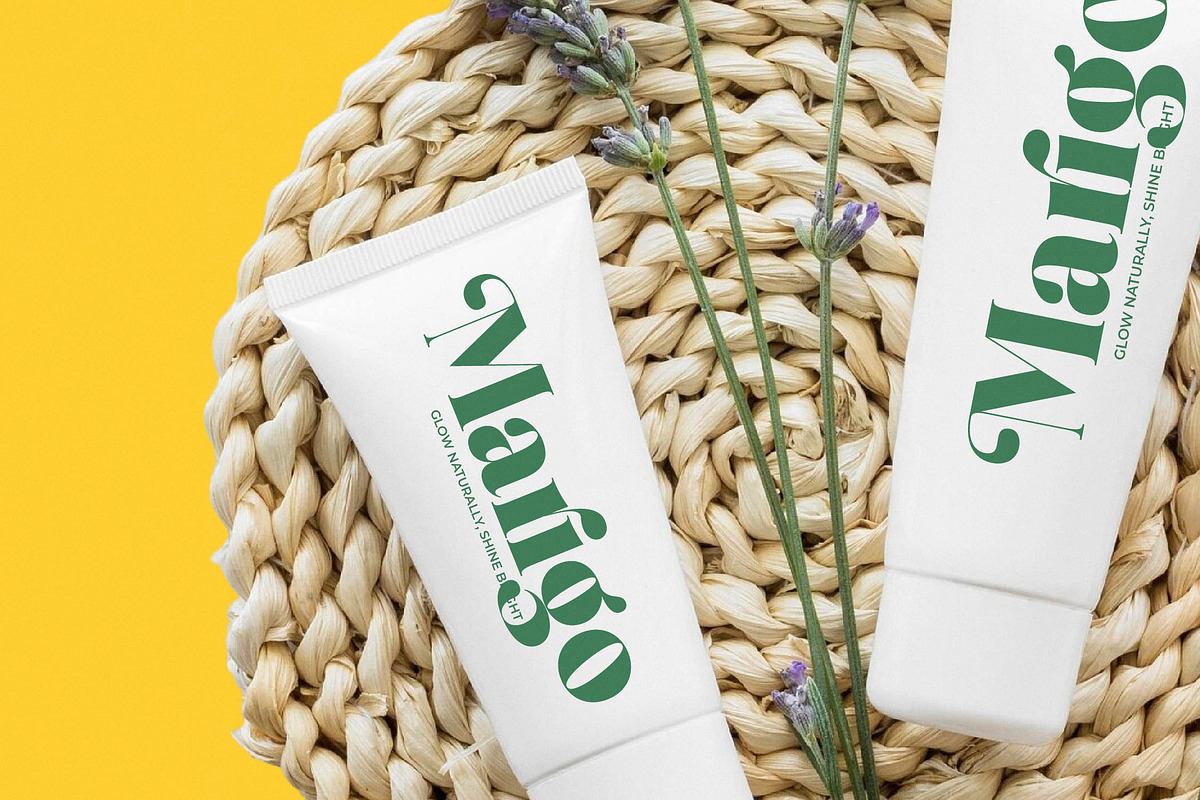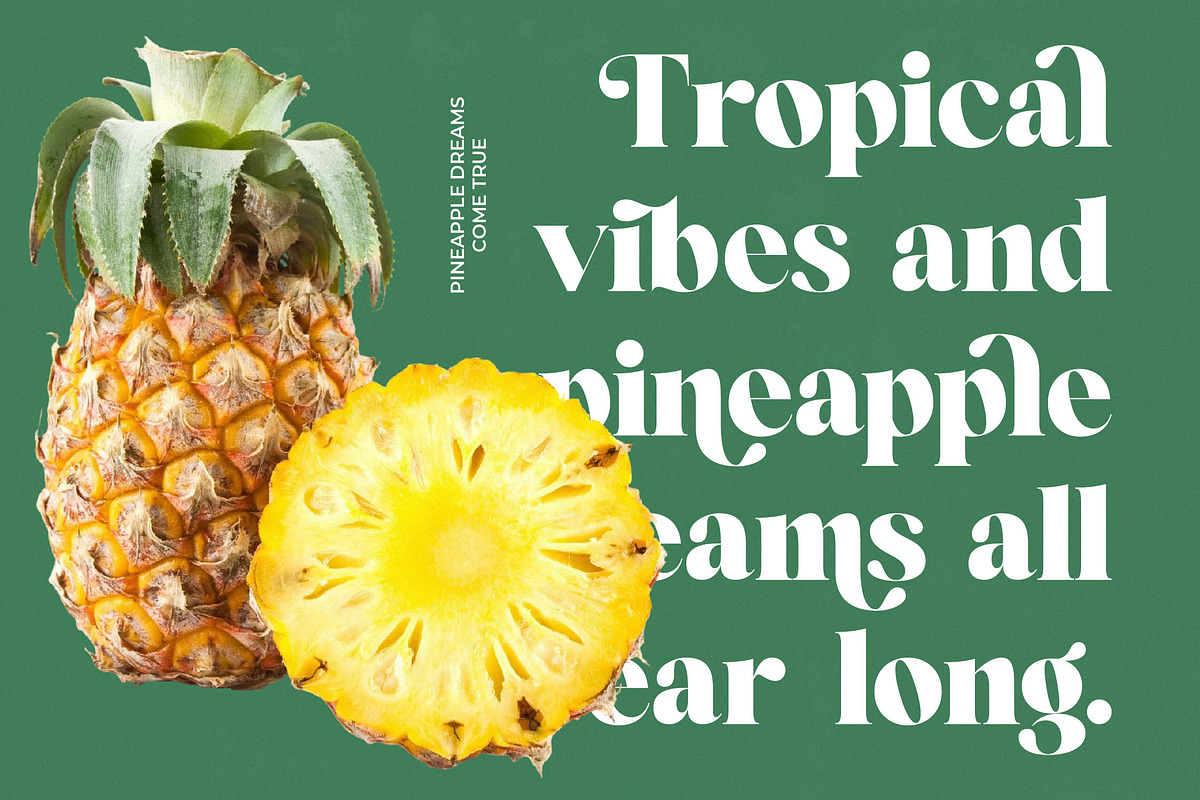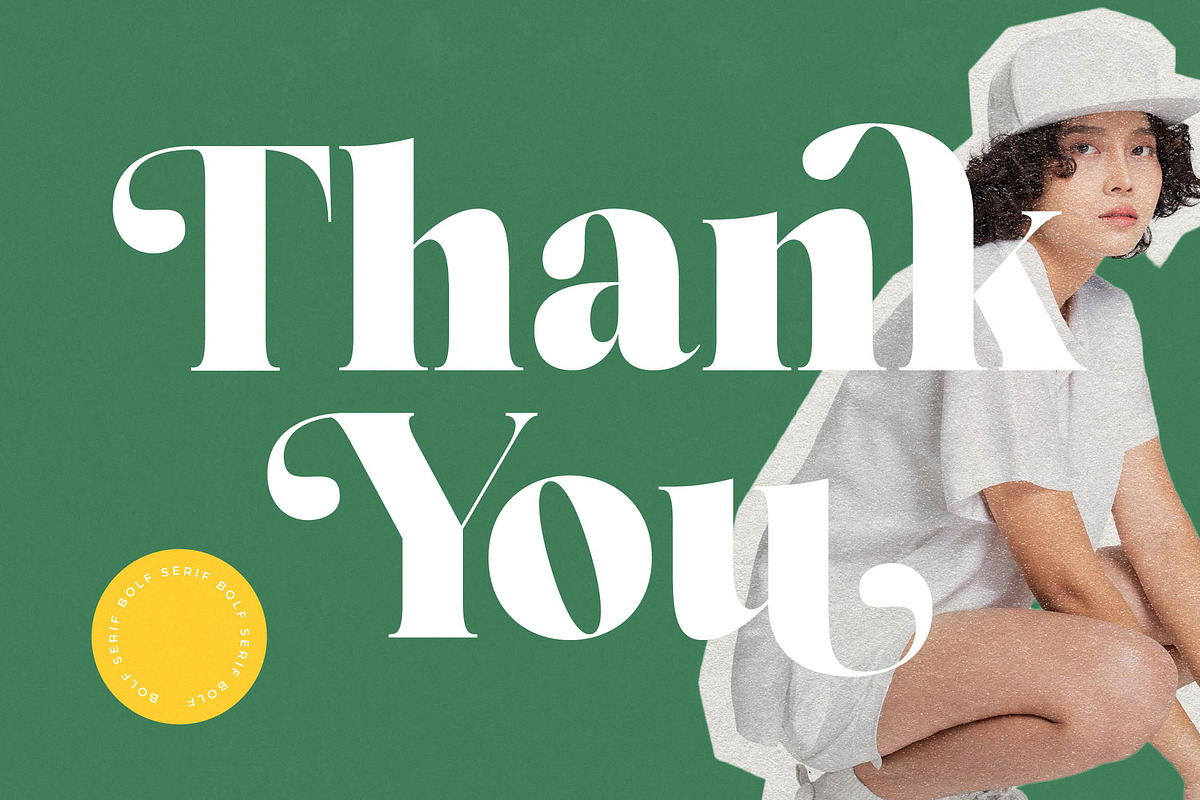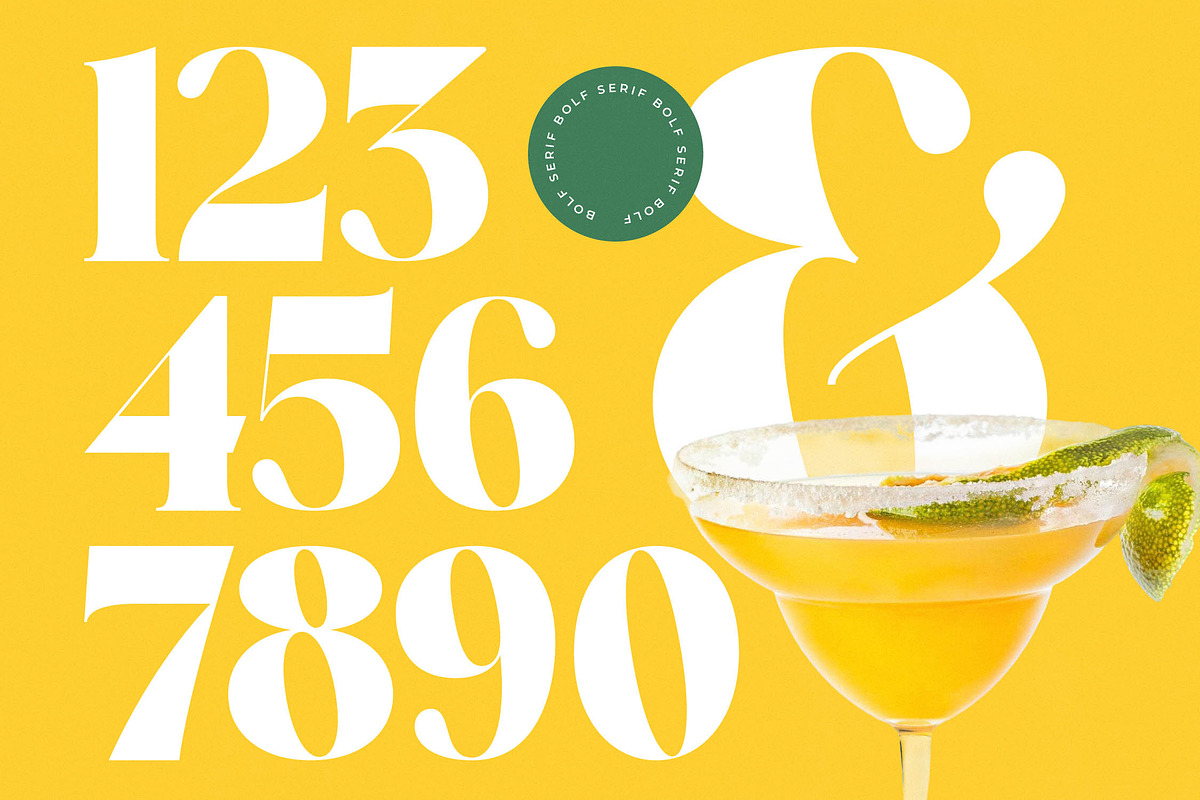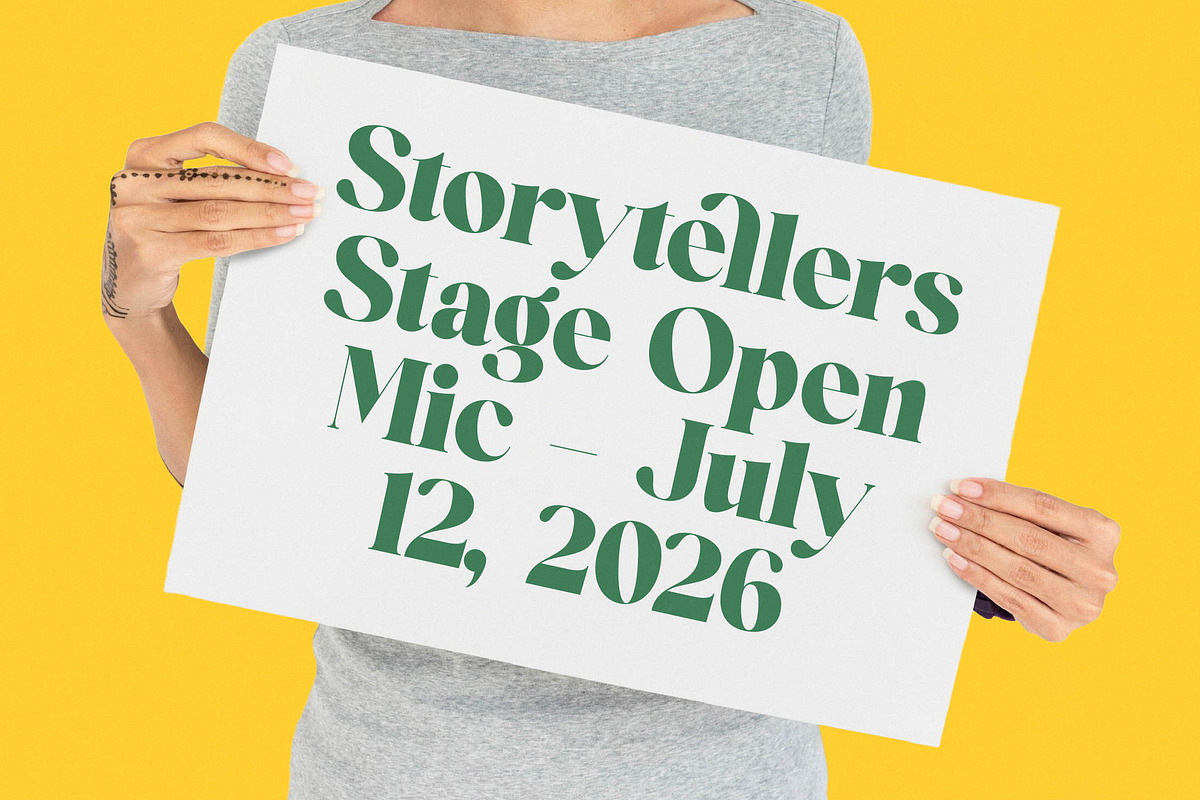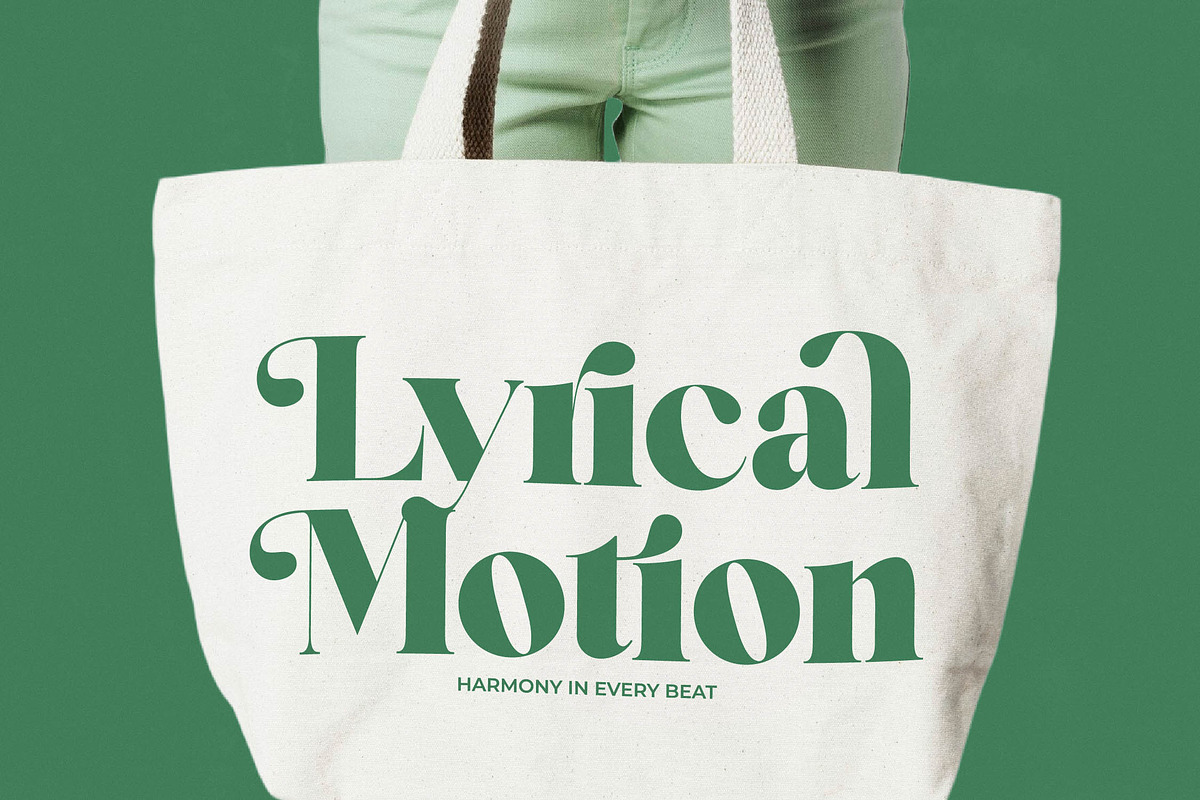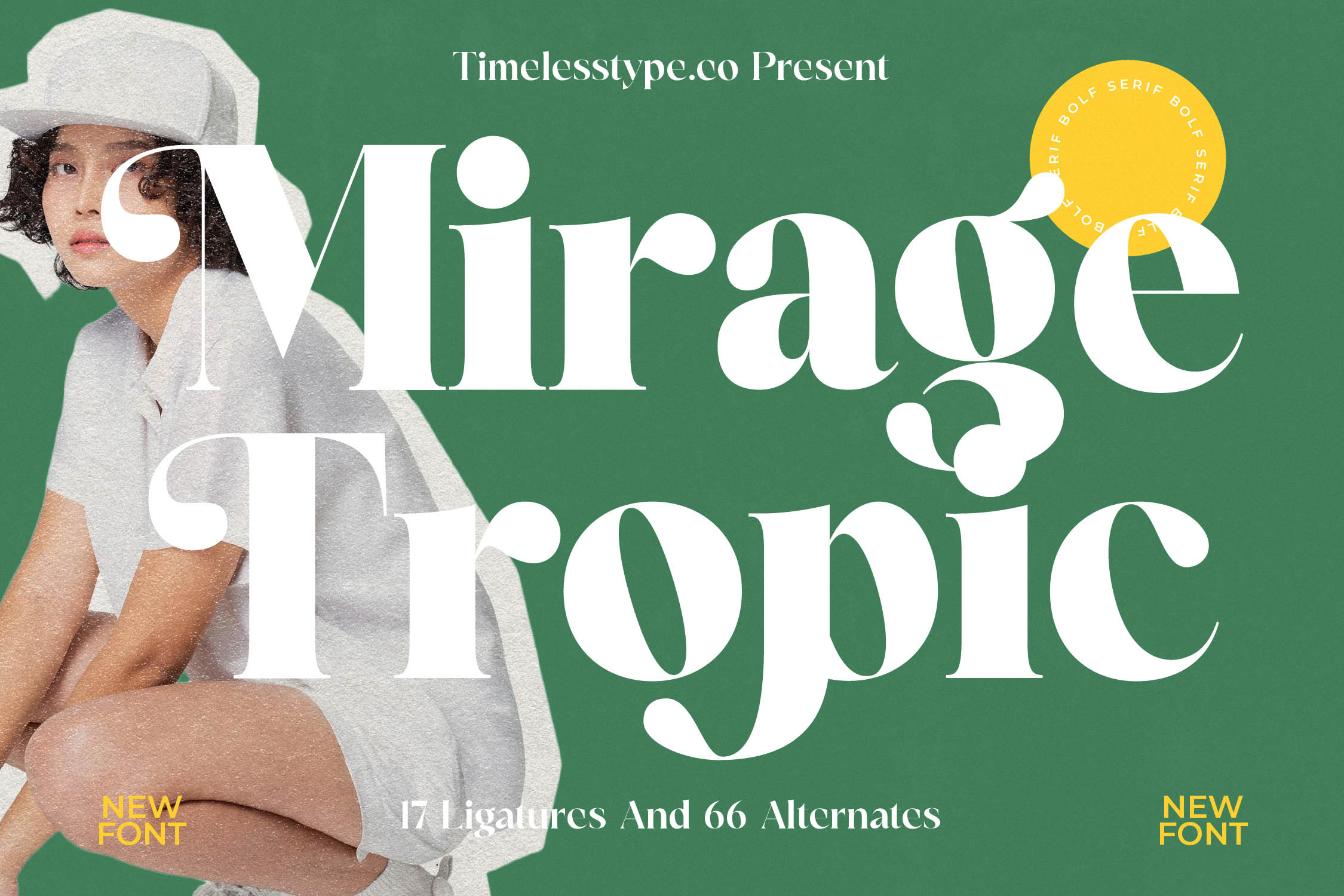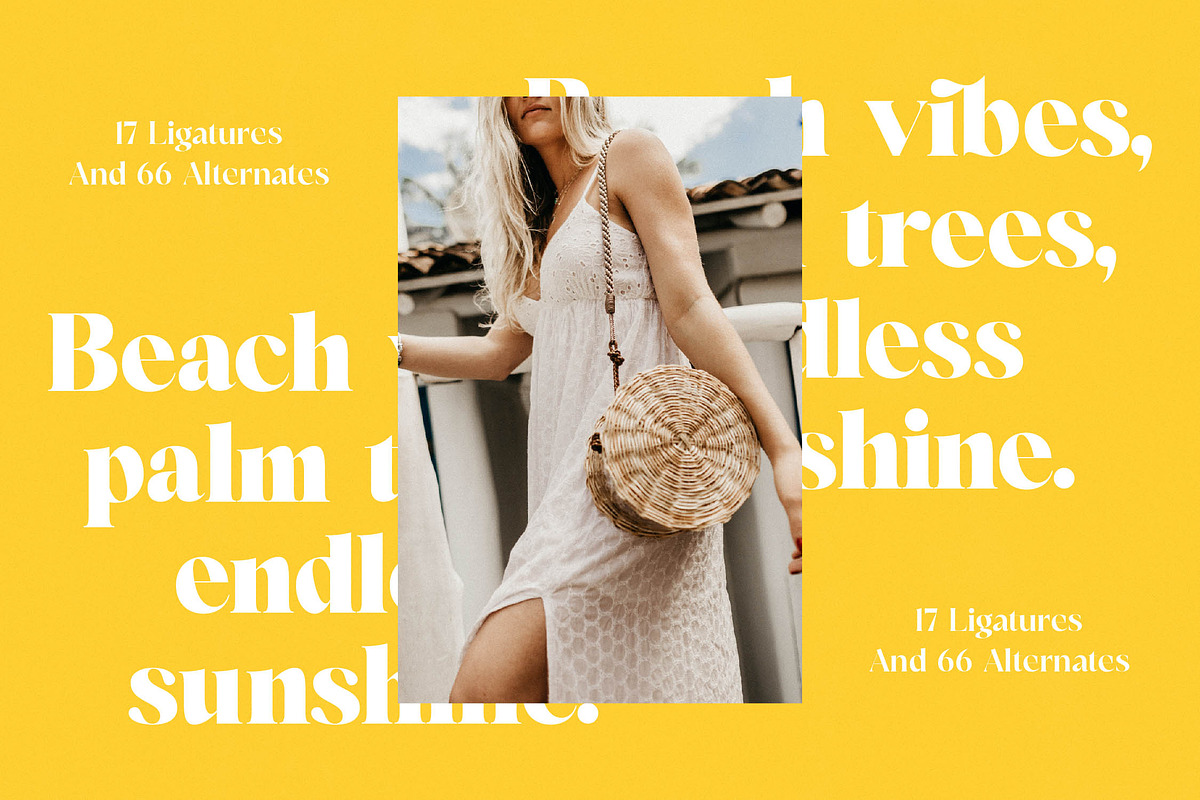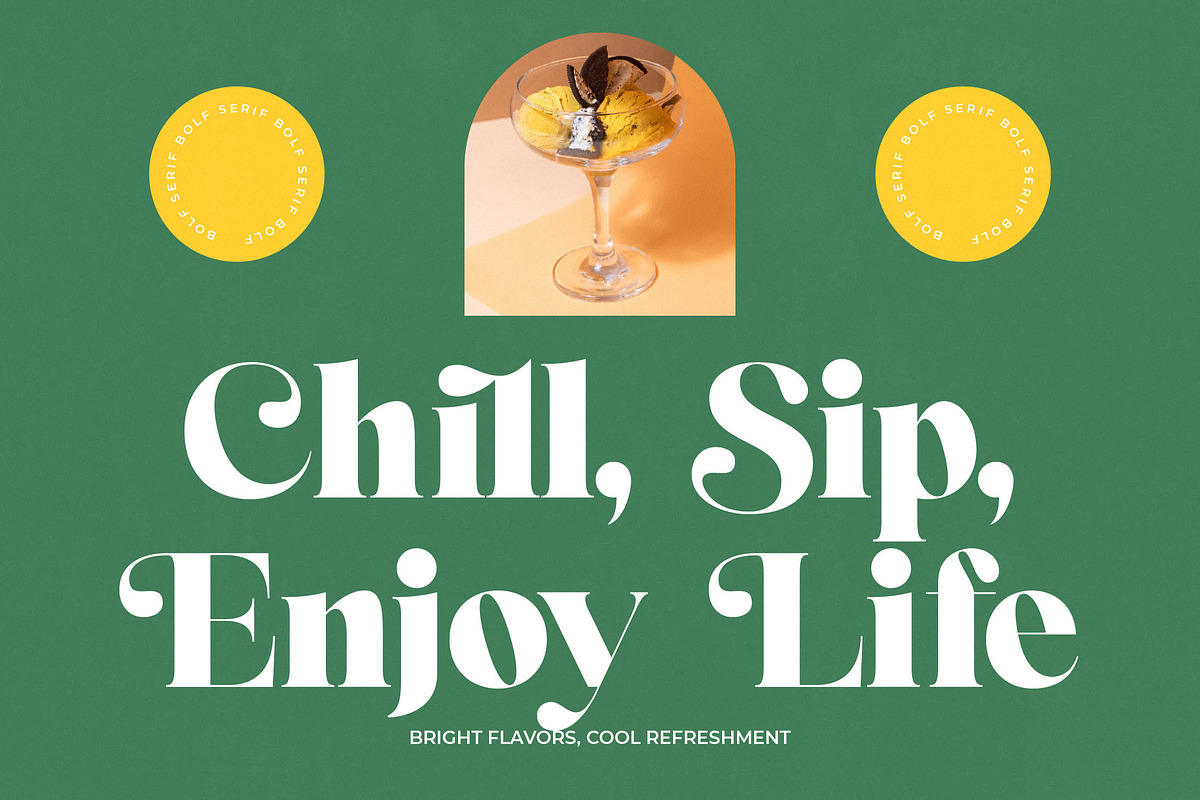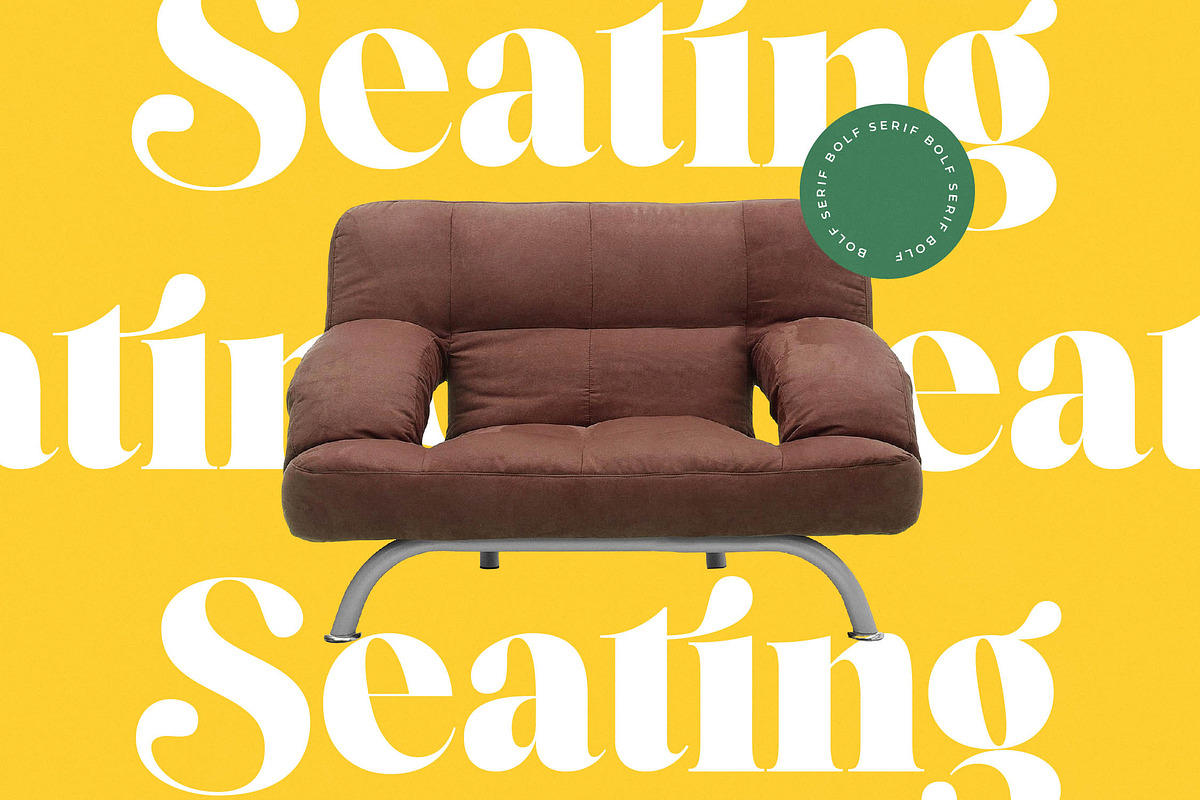
Mirage Tropic Modern Serif Font
Experience the sun-drenched elegance of Mirage Tropic, a typeface designed to infuse your creative projects with a sense of high-end summer luxury. This font captures a perfect balance between timeless sophistication and contemporary flair, making it an essential addition to any designer's toolkit.
Inspired by the lush atmosphere of tropical resorts and the refined aesthetic of vintage cocktail lounges, this typeface evokes a world of cool breezes and vibrant colors. Its design reflects the rhythmic flow of island life while maintaining the sharp, clean lines found in high-fashion editorial spreads.
Exhibiting a distinct modern serif display style, this luxury typography is defined by its high-contrast serif strokes that command attention instantly. It is an ideal editorial font crafted for maximum branding impact, ensuring your message is delivered with both clarity and an unmistakable sense of prestige.
Aligned with the current modern serif trend, this typeface stands out among editorial display fonts for its unique blend of sharp edges and fluid curves. It represents the best of character-driven typography, meeting the demand for fonts that offer personality without sacrificing professional utility in a crowded market.
Perfect for high-end logo design and comprehensive branding systems, its versatility extends to sophisticated editorial layouts and luxurious packaging. Whether you are designing for a boutique wedding or a cutting-edge fashion house, this font provides the elevated aesthetic required for premium results.
To enhance your creative freedom, the set includes a generous collection of ligatures and alternates alongside expressive swashes that allow for custom typographic arrangements. With full multilingual support and a wide range of international characters, this font is ready for global applications across various media platforms.
- Ligature 17 Alternate 66